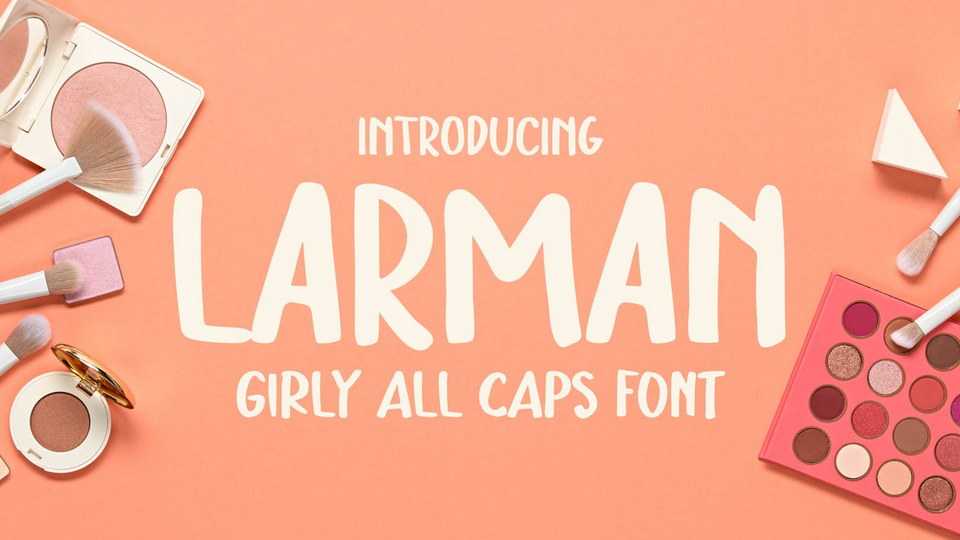
Download Larman font, a handwritten girly typeface. It’s all a fun and happy vibe with Larman using in your project. Cute and still have clear readability in their shape.